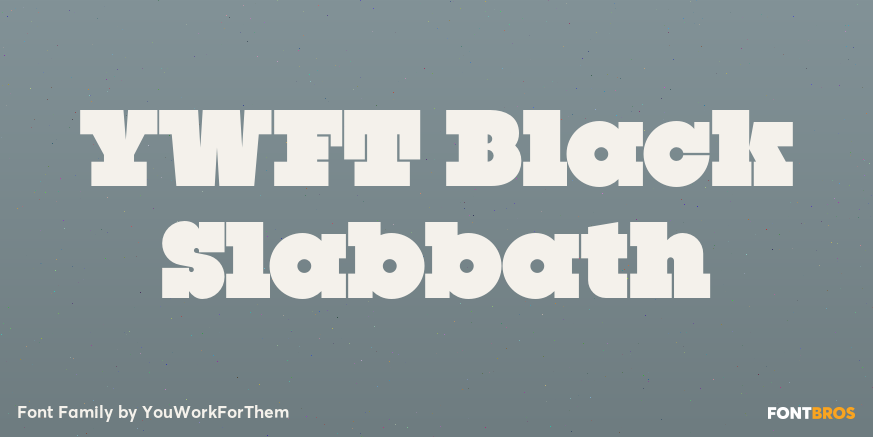
YWFT Black Slabbath
About YWFT Black Slabbath
The heaviest typeface in the world, Black Slabbath. There\’s only one thing about this new typeface that isn\’t colossally black: the razor-thin white space. It slices through and between geometric characters, creating a juxtaposition of contrasts and rhythms.…